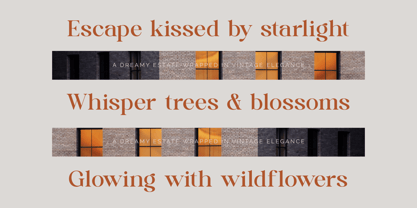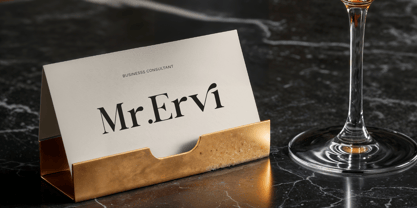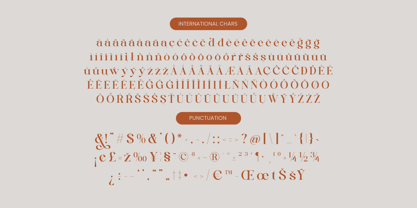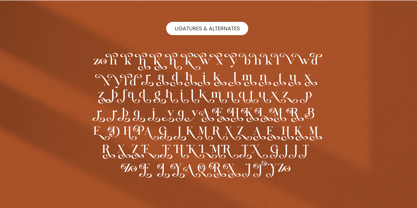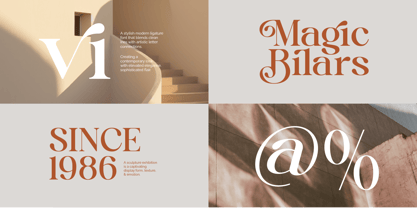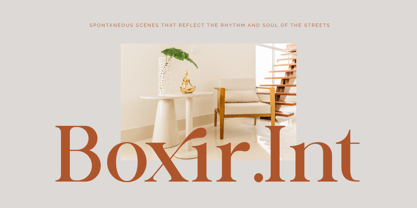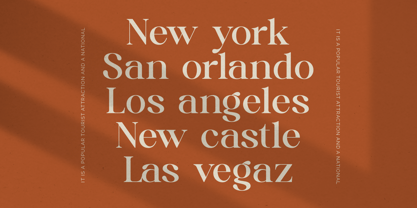
Quika Calletto
by Timelesstype Studio
The Quika Calletto Font Family was designed by Heru Utama Putra and published by Timelesstype Studio. Quika Calletto contains 2 styles and family package options. More about this family
Quika Calletto - Modern Serif Font , from Timelesstype , Suitable for any projects such as: logos, branding projects, homeware designs, product packaging, mugs, quotes, posters, shopping bags, t-shirts, book covers, name card, invitation cards, greeting cards, label, photography, watermark, special events, and all your other luxury and beautiful projects that need a Luxury Serif taste.
Quika Calletto